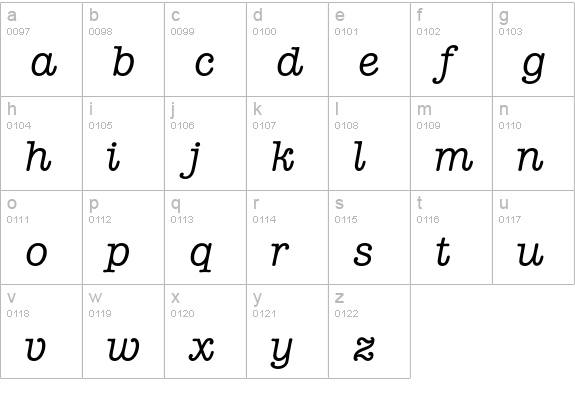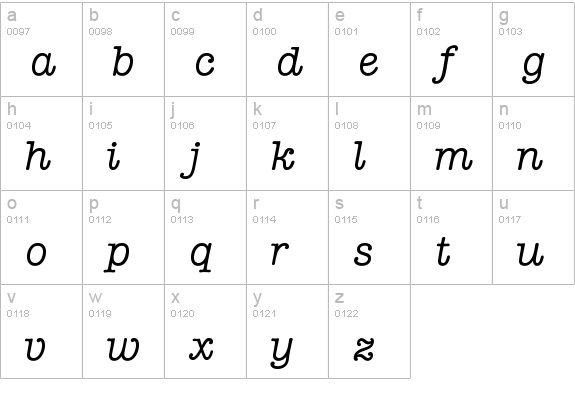
American Typewriter* Medium Italic is a balanced, medium-weight, italic variant in the American typeface family \xE2\x80\x94 well suited to sub-headlines, navigation, and balanced editorial work.
American Typewriter Medium Italic is a timeless and versatile font that exudes a sense of vintage charm and sophistication. With its distinctive slanted style, this font is perfect for adding a touch of elegance to any design project. The italicized letters provide a unique flair while maintaining the classic typewriter aesthetic. What sets American Typewriter Medium Italic apart is its ability to effortlessly blend classic design elements with a modern twist, making it suitable for a wide range of applications from branding to editorial design. Its clean lines and balanced proportions make it easy to read, while its italicized form adds a touch of personality and flair. The best part is that American Typewriter Medium Italic is available for free download at FontsMarket.com. Whether you're working on a project that calls for a touch of vintage sophistication or simply looking to add a unique twist to your designs, this font is sure to elevate your work to the next level. Download American Typewriter Medium Italic today and discover the timeless beauty of this classic font.